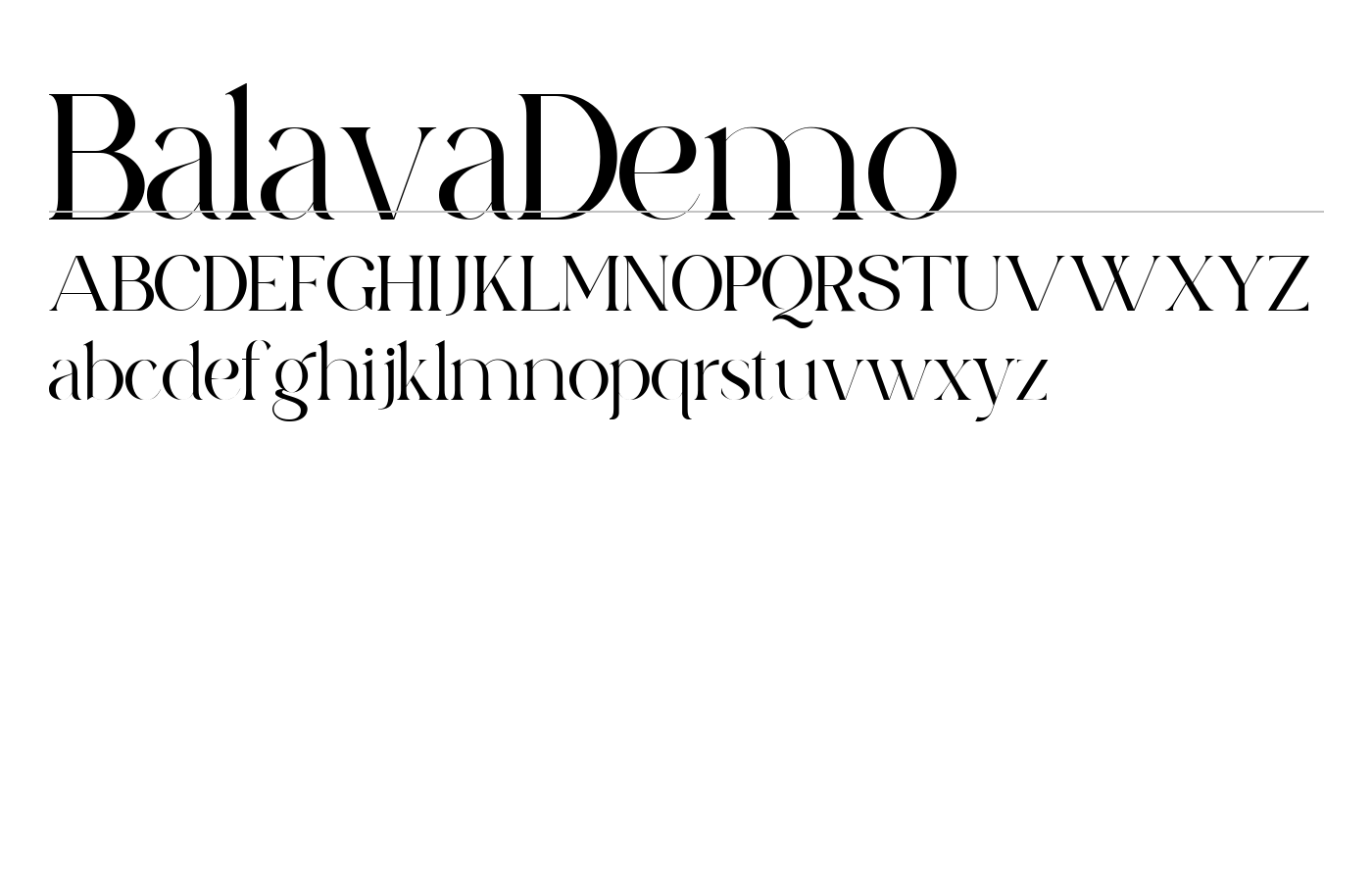
BalavaDemo is a refined serif font with a modern Didone style, featuring high contrast between thick and thin strokes and elegant, sharp serifs. Its tall, narrow letterforms and distinctive curves create a sophisticated and stylish look, making it perfect for luxury branding, editorial headlines, and high-end design projects where elegance and readability are key. This font adds a timeless yet contemporary feel to any creative work that seeks to convey class and refinement.
BalavaDemo Font